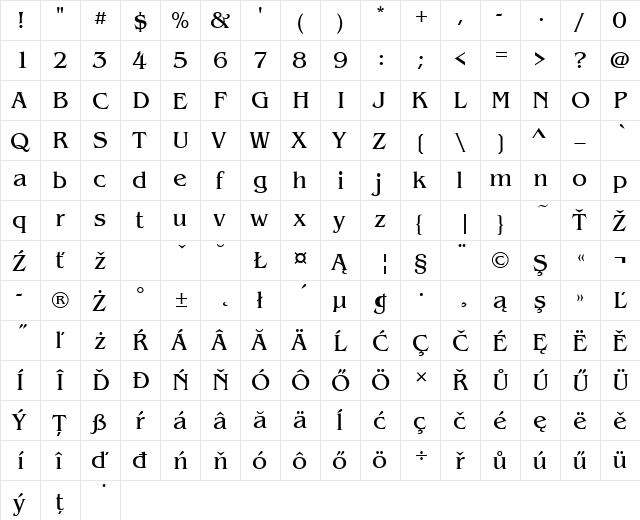
BenguiatItcTEE Regular Font Preview
BenguiatItcTEE Regular
BenguiatItcTEE Regular Font Details
Design Context for BenguiatItcTEE Typeface
BenguiatItcTEE takes a measured approach to typography — its balanced proportions and neutral character make it a reliable workhorse for both digital and print work.